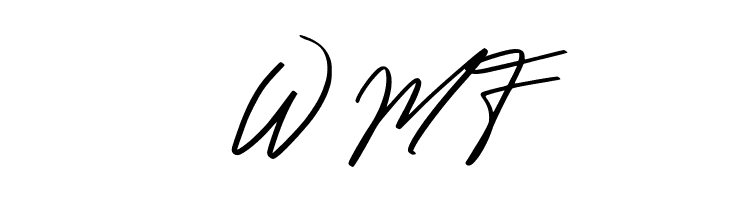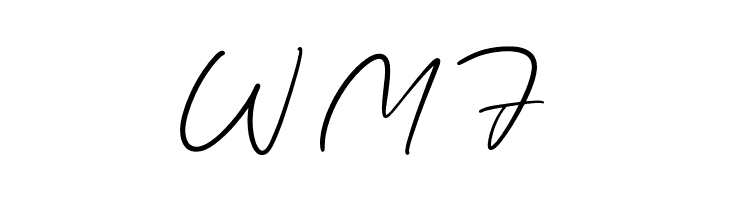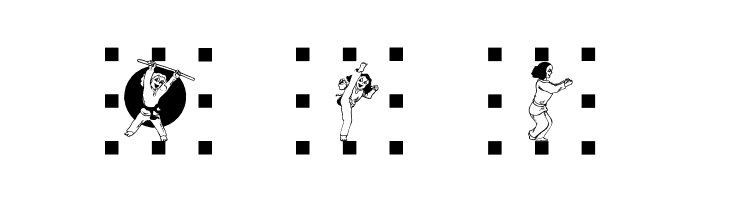
• Kalste
( Fonts by Jadatype )
Elegant cursive script font.
• Kampfsport
A decorative font with martial arts figures representing each character.
• KARATE
A bold, dynamic font with fluid curves and a brush-like style.
• KARATE
• Karbetz
A jagged, edgy font with a hand-drawn, rebellious style.
• KatchyMarkers
A bold, brush-style font with dynamic strokes and artistic flair.
• Katedryllon
A dynamic and fluid script font with elegant, flowing letterforms.
• Kathaline
A graceful script font with flowing curves and high contrast strokes.
• Katika
A dynamic, cursive script font with a flowing, handwritten style.
• Katty Purry
A playful, bold handwritten font with a smooth, rounded style.